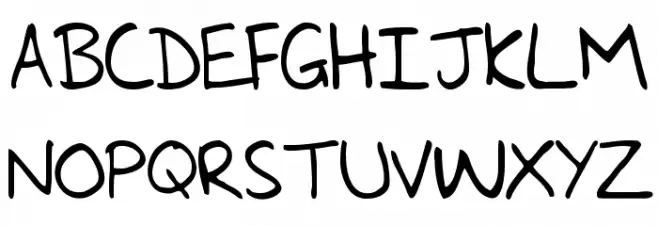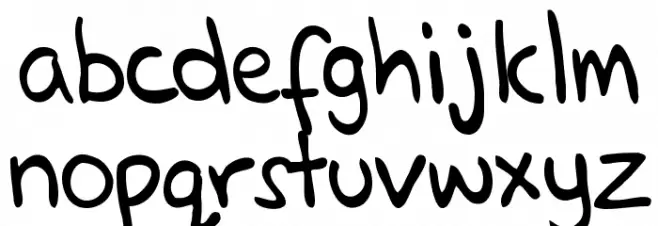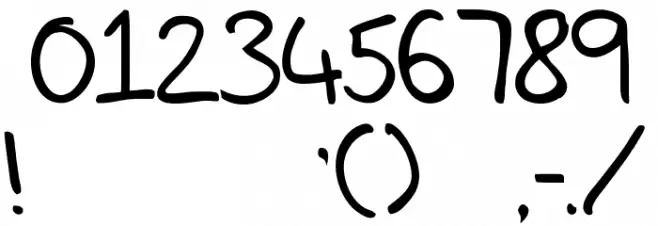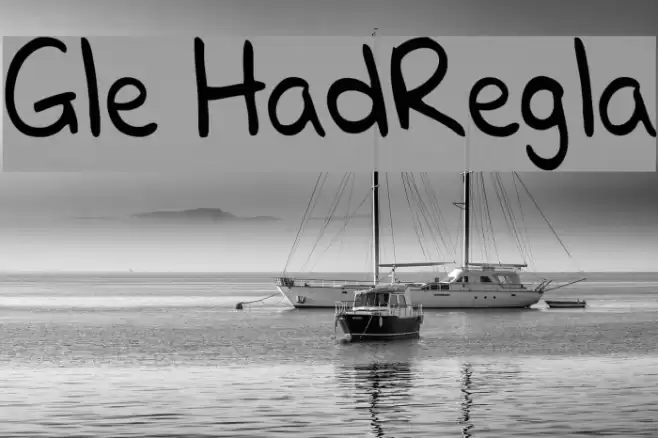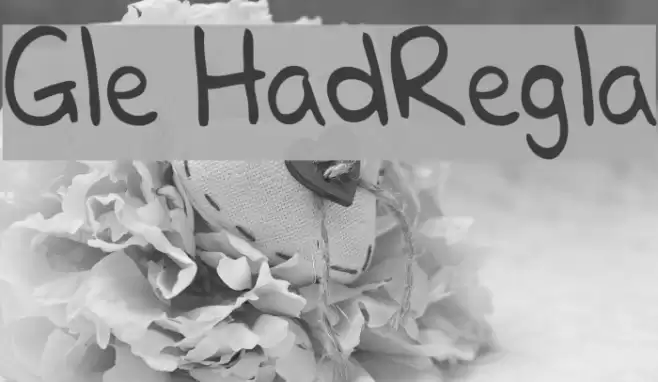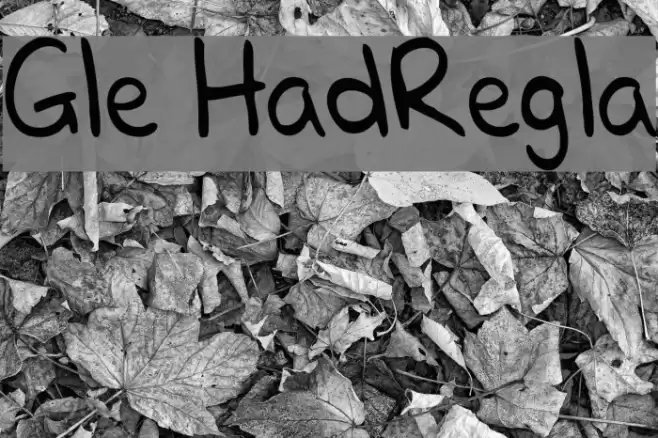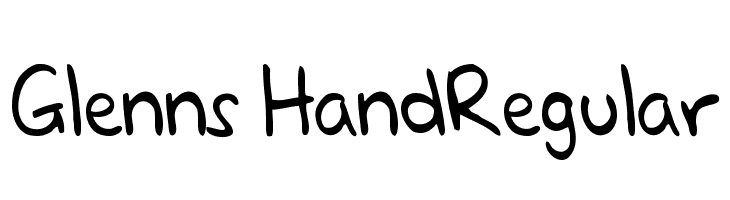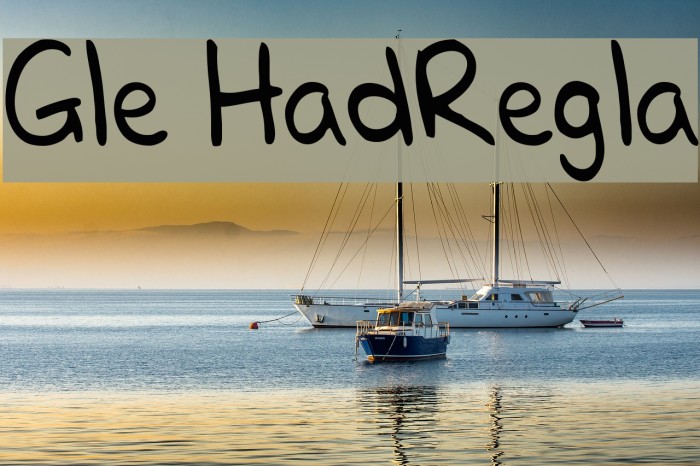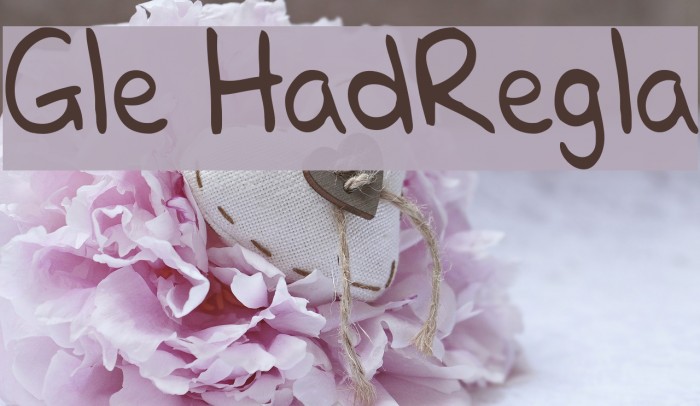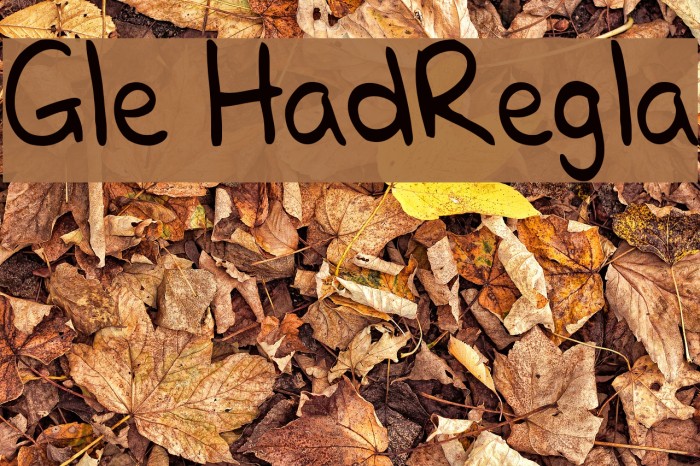
Glenns HandRegular
This font exudes a casual and approachable vibe, reminiscent of natural handwriting. The strokes are uneven, adding a personal touch that makes it feel warm and inviting. The characters are slightly slanted, contributing to a dynamic flow across the text. The uppercase letters are bold and prominent, while the lowercase letters maintain a playful, rounded appearance. The numbers and special characters are consistent with the overall style, ensuring a cohesive look. This font is perfect for projects that require a personal, informal touch, such as greeting cards, invitations, or creative branding.
A casual, handwritten-style font with a warm and inviting appearance.
- Proposed Projects: Ideal for greeting cards, invitations, personal branding, and creative projects.
- Overall Style: Casual, Personal
- Use Case: Headlines, Logos, Informal Text